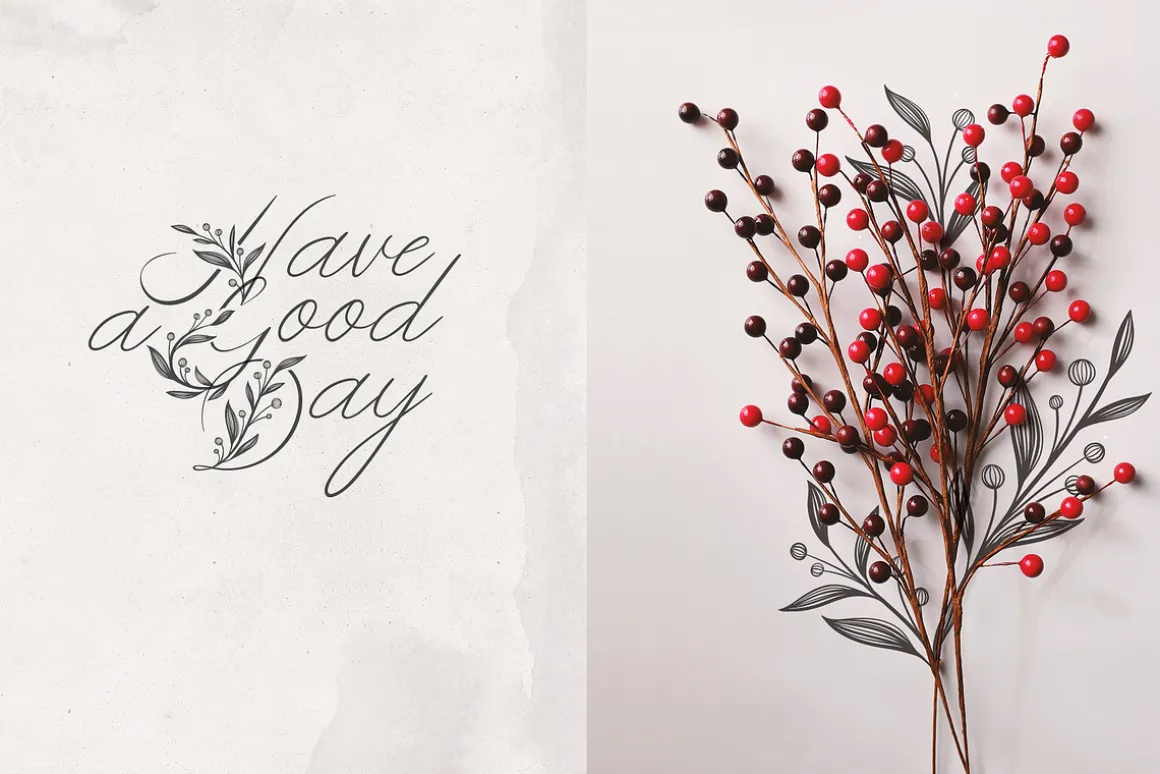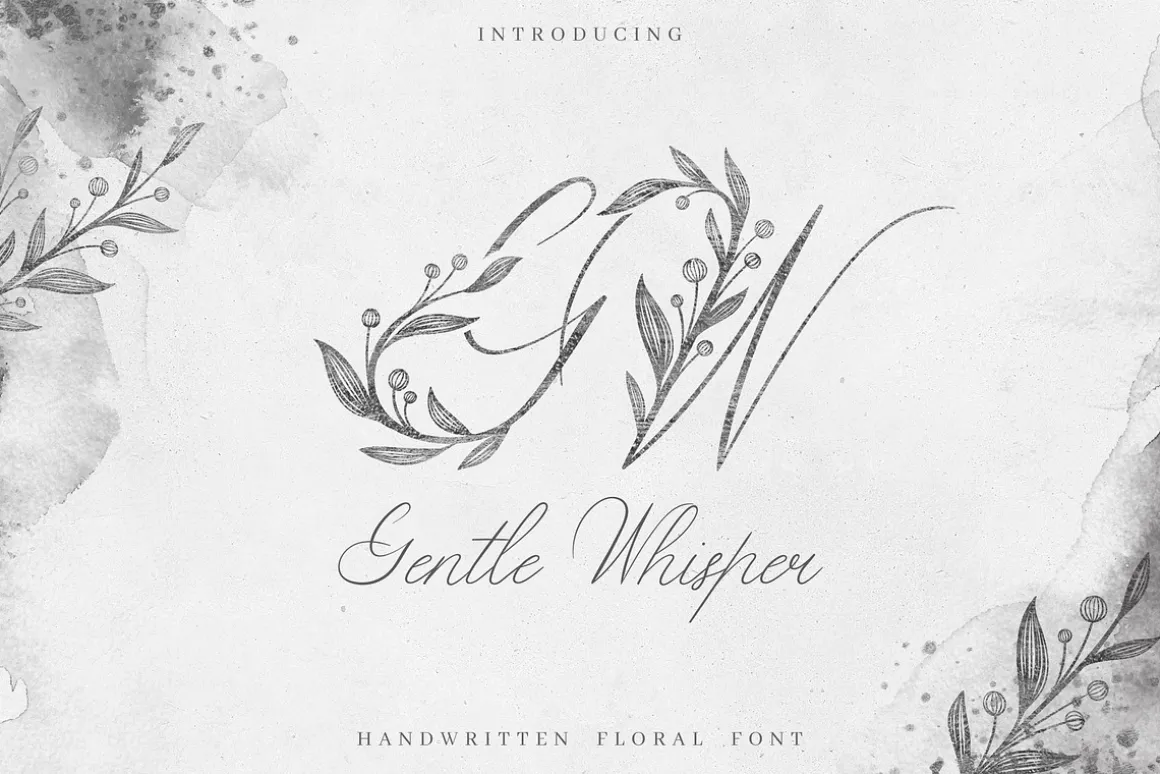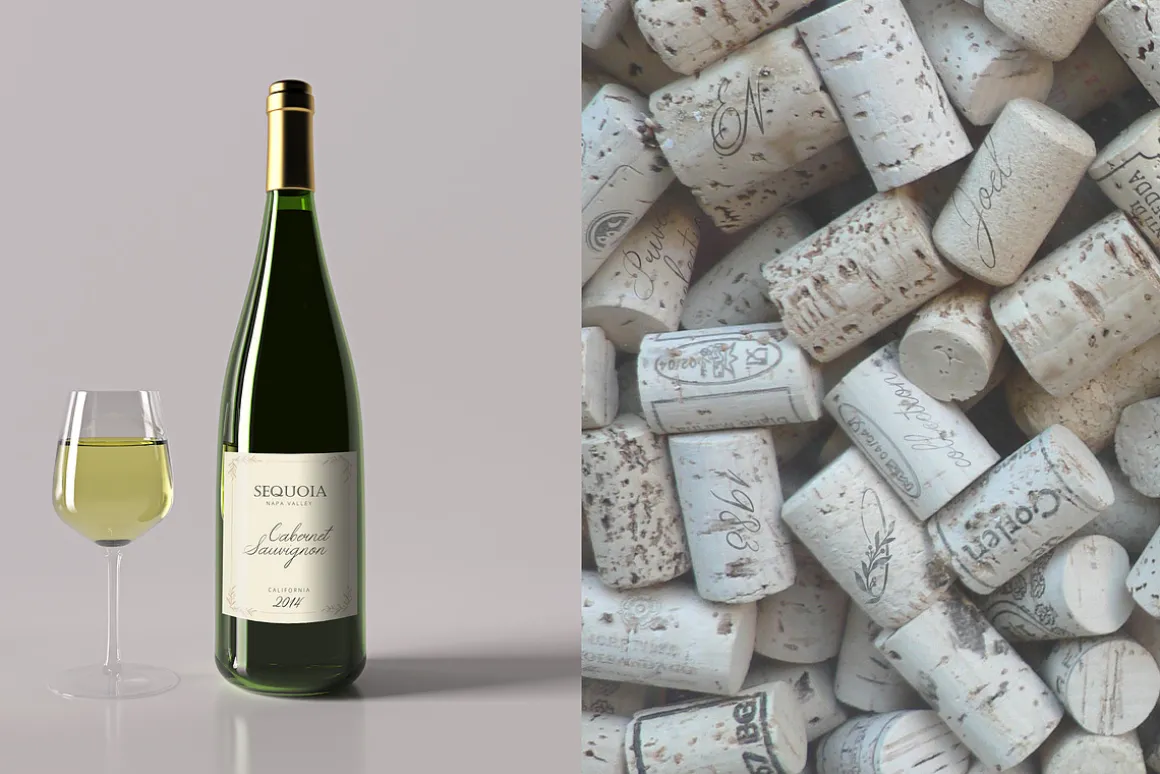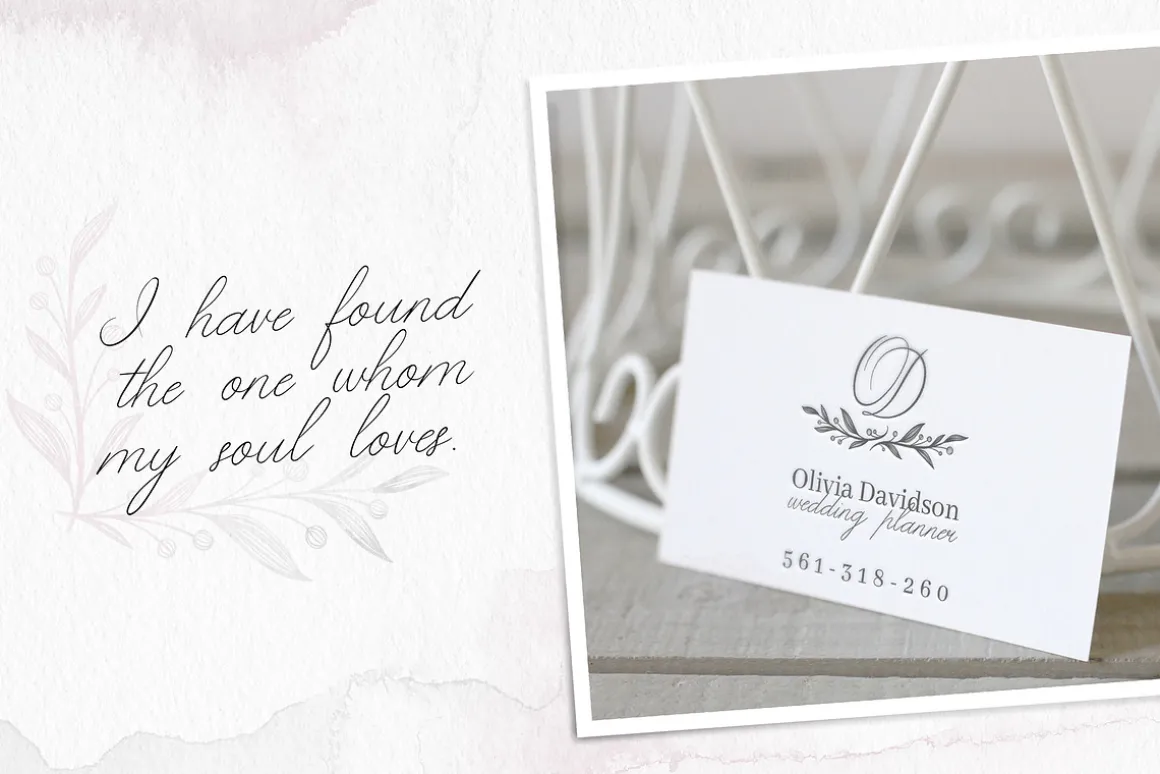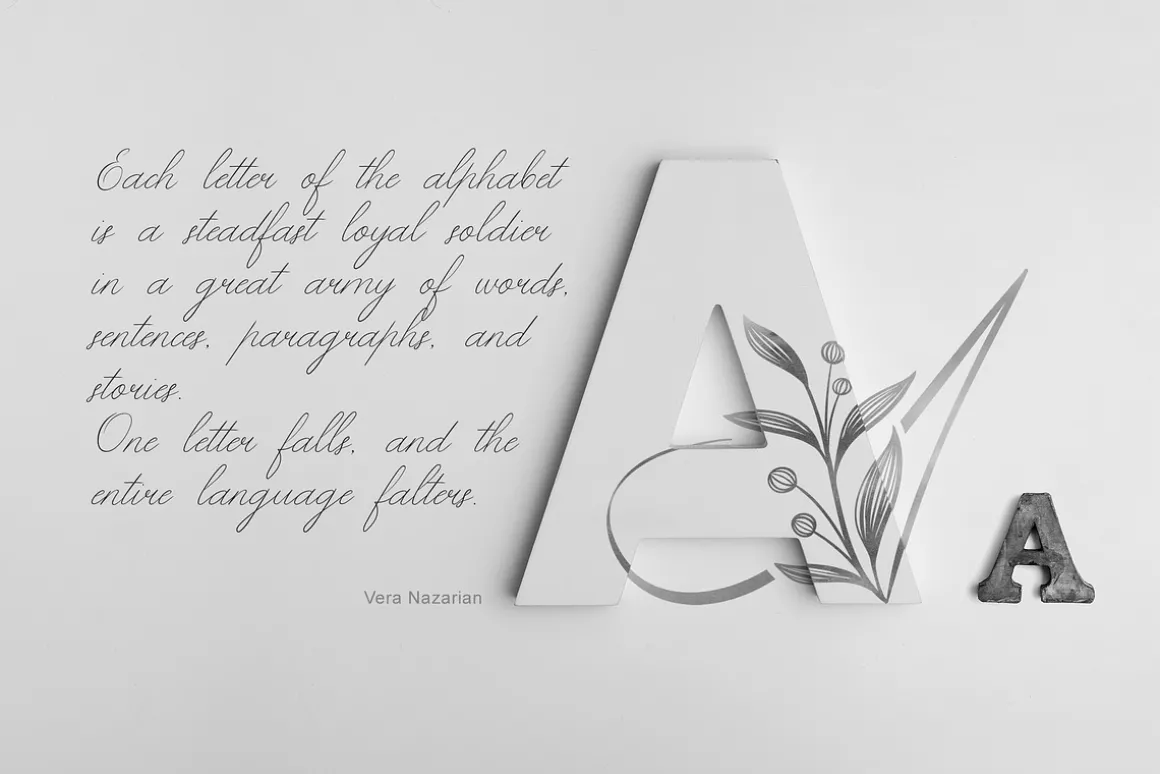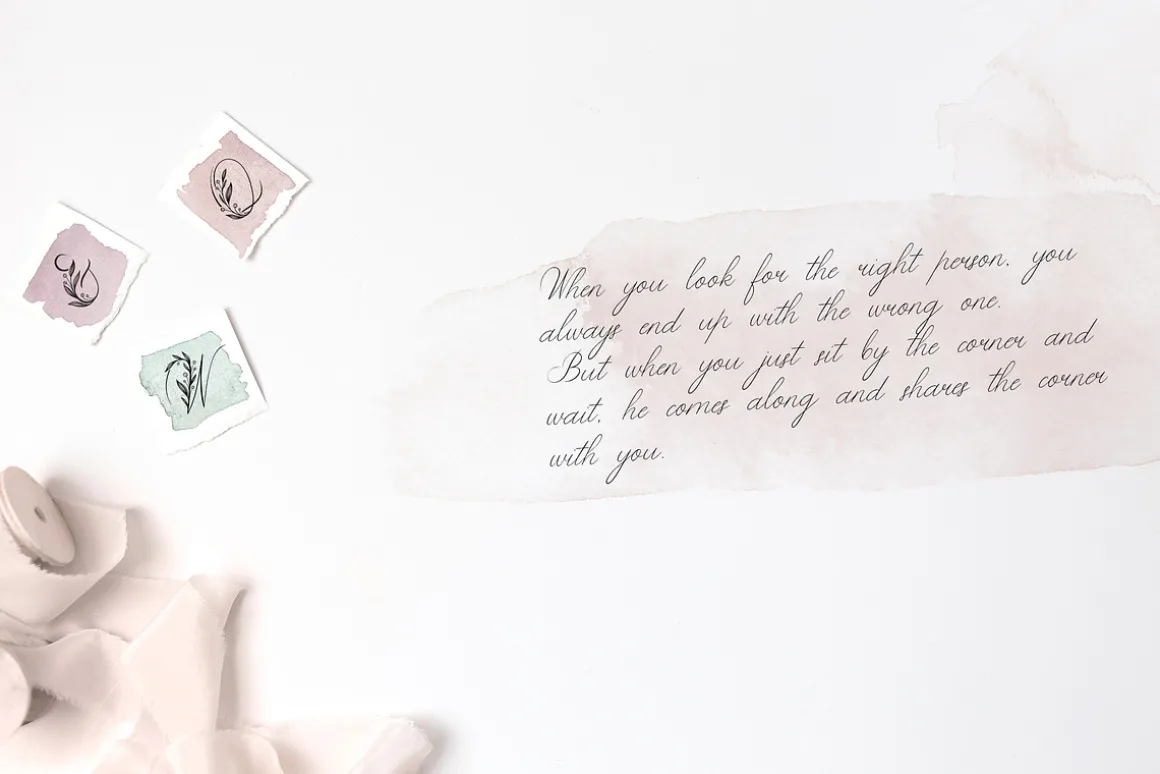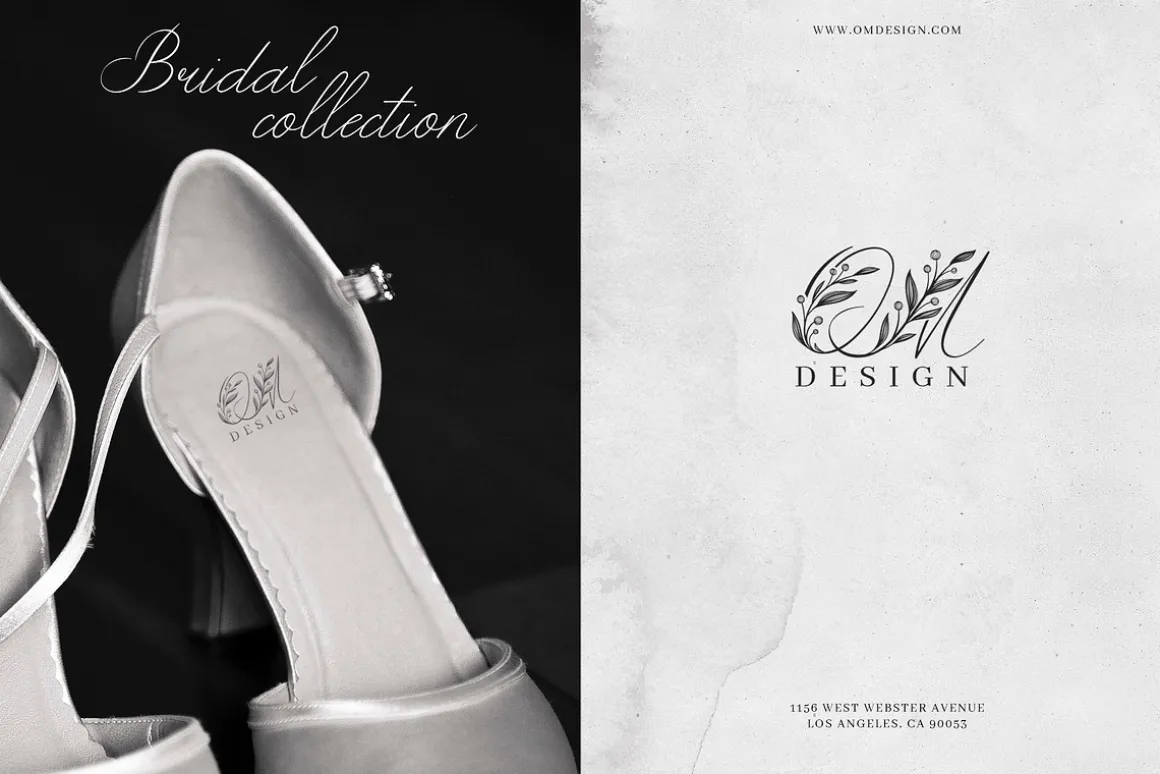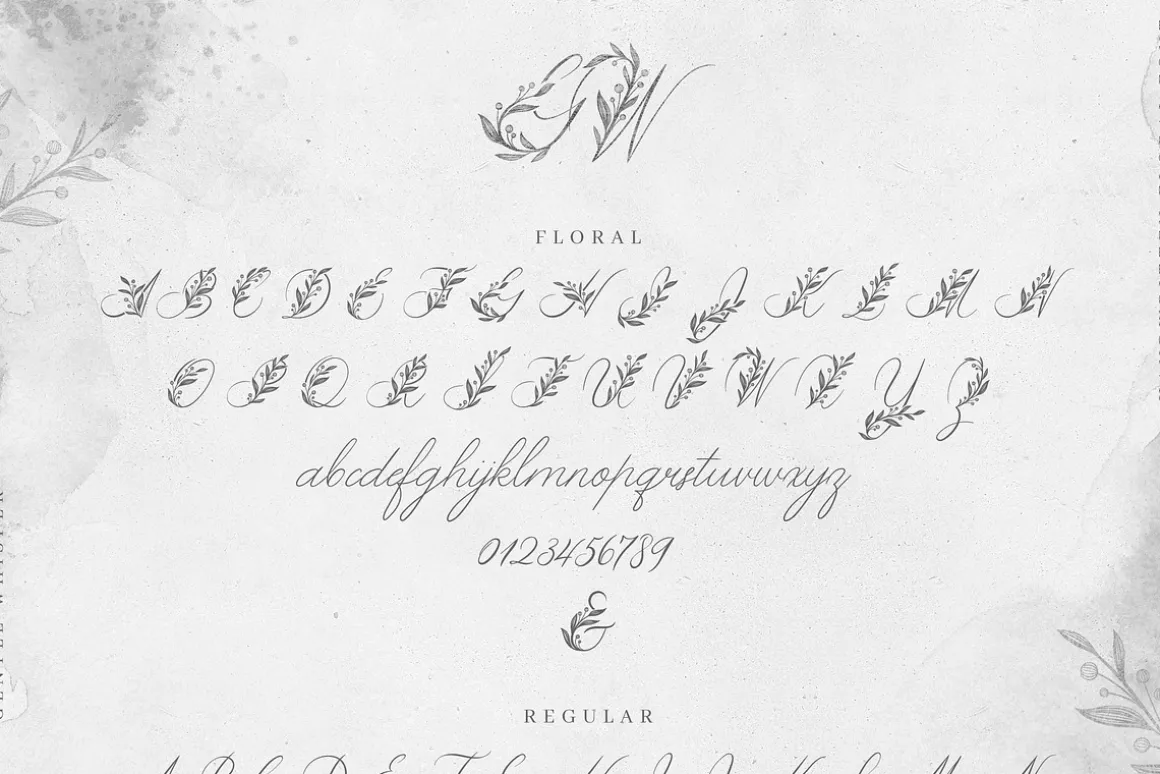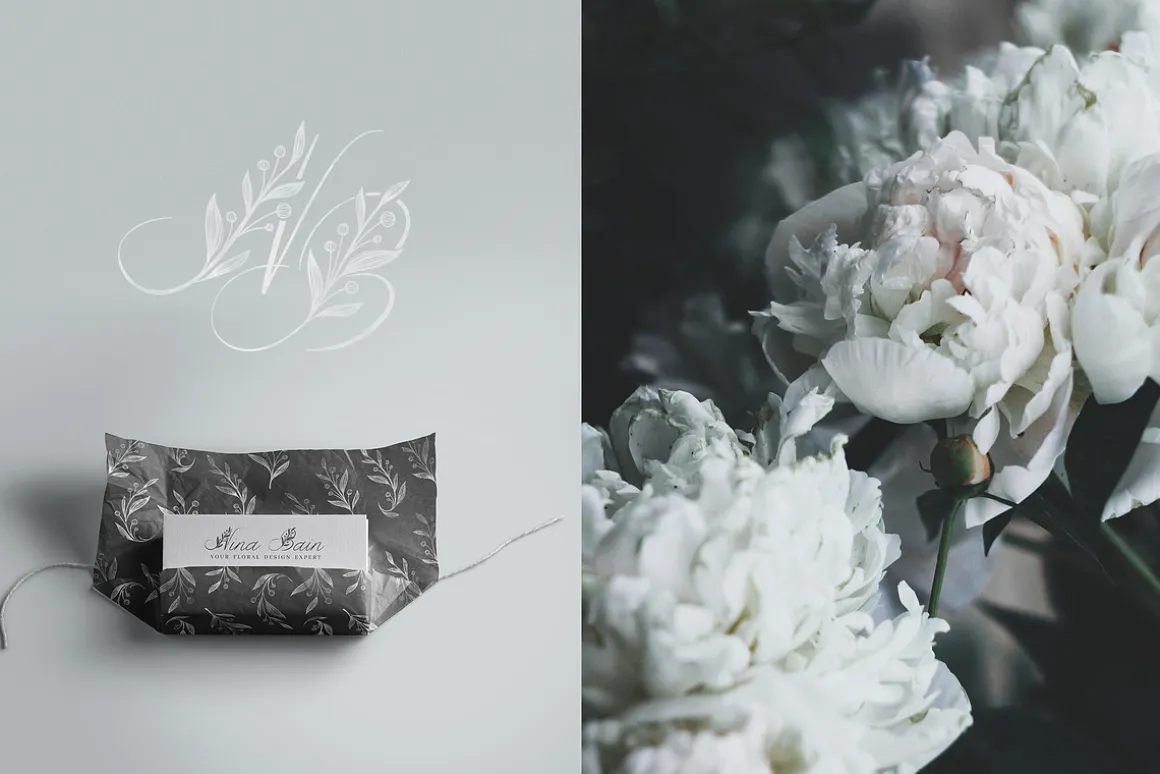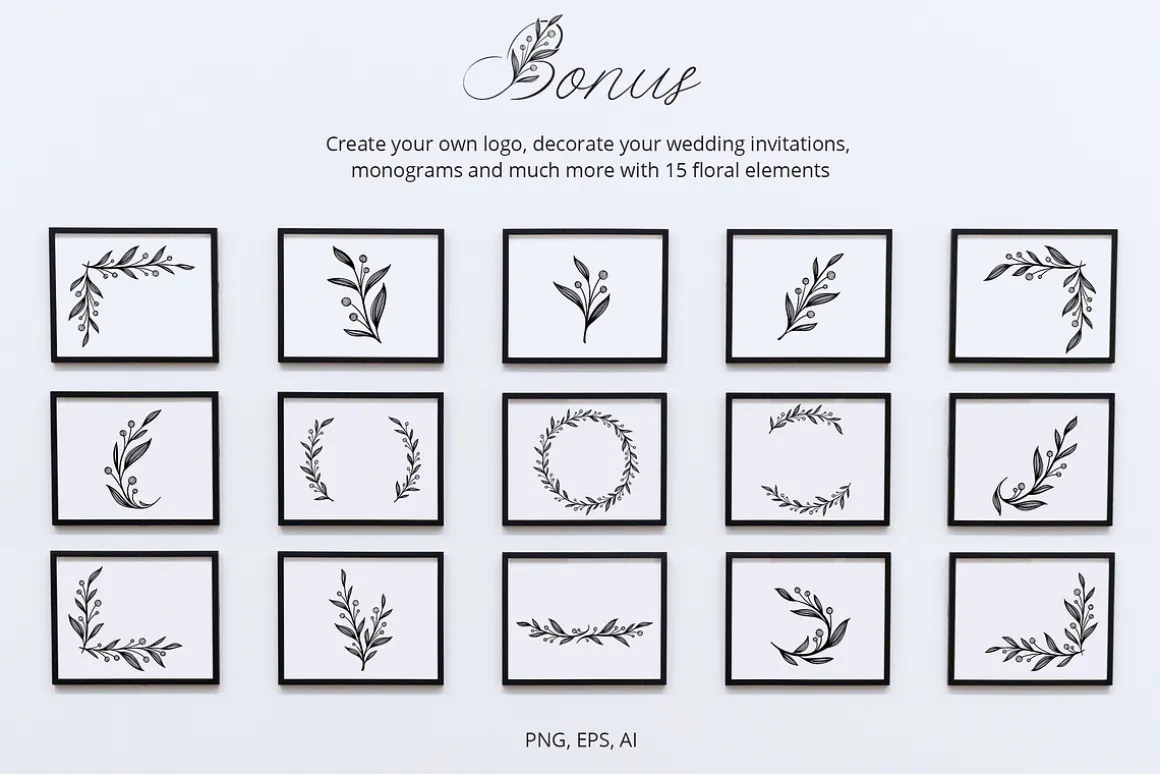
I’m pleased to introduce my new handwritten floral font Gentle Whisper.
Gentle Whisper comes in two styles: Floral and Regular.
Gentle Whisper Floral is an elegant, decorative, feminine font. Floral uppercase letters are ideal for your wedding monograms and logos. Use this font for wedding invitations, branding, packaging, magazines, florist shops, social media, restaurant menus, greeting cards, headers and many more.
Gentle Whisper Regular is a modern calligraphy font. It’s perfect for wedding design projects, Valentines card, instagram, invitations, signatures, watermarks, logos, letterpress address, titles, birthday invitations, handwriting and more.
UPDATE: Gentle Whisper has now been updated to support French, Italian, Spanish, Portuguese, German, Swedish, Norwegian, Danish, Finnish and other (áâàäåãæçðéêèëíîìïıñóôòöõøœšßúûùüűýÿžÁÂÀÄÅÃÆÇÐÉÊÈËÍÎÌÏÑÓÔÒÖÕØŒŠẞÚÛÙÜŰÝŸŽ). •